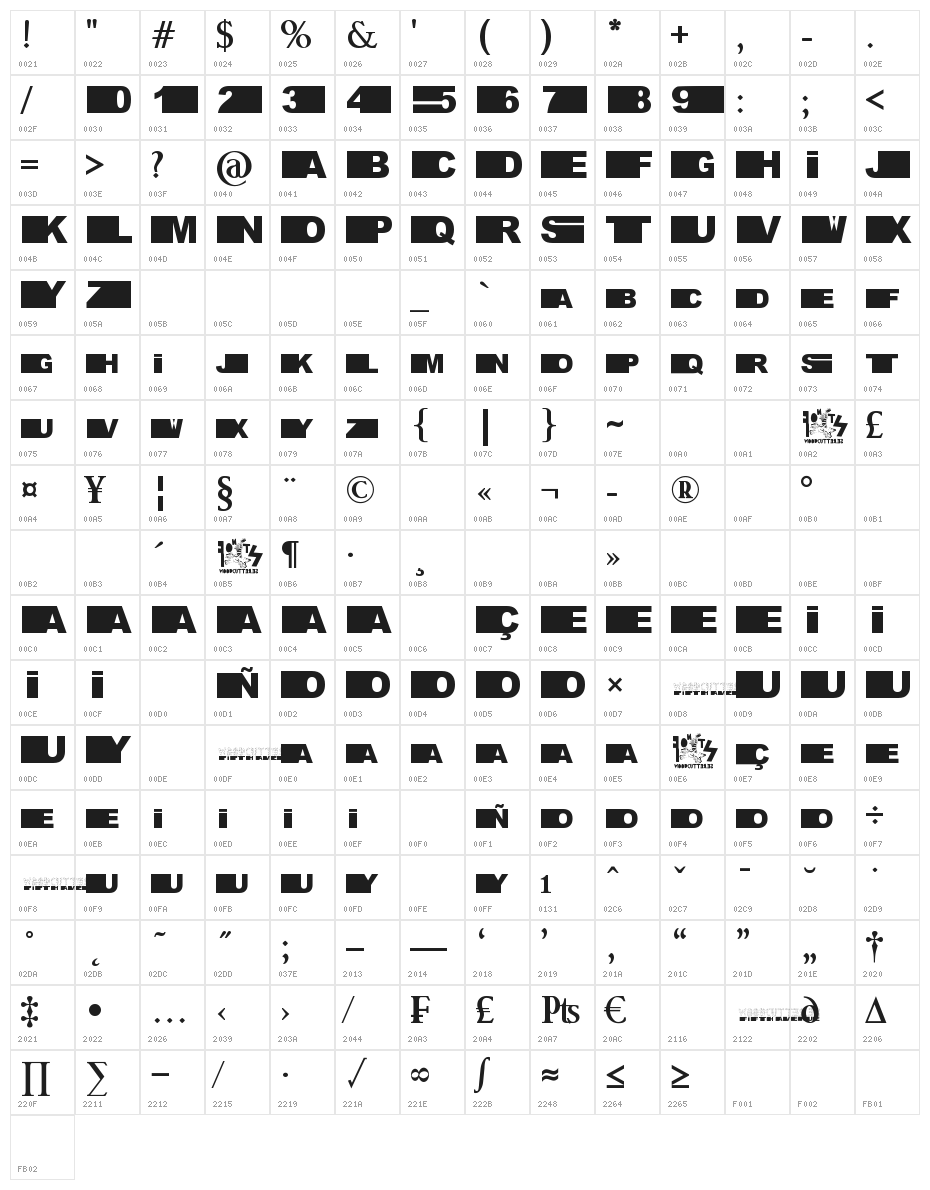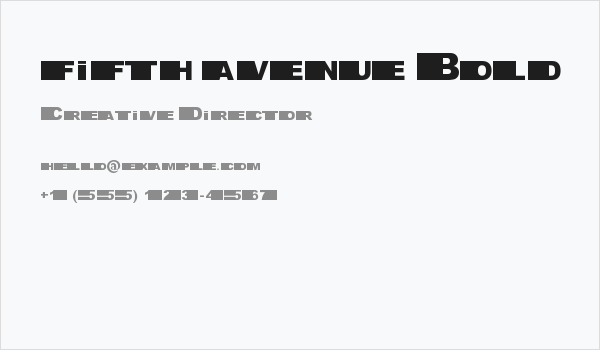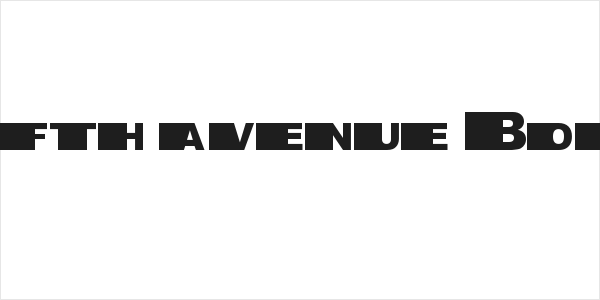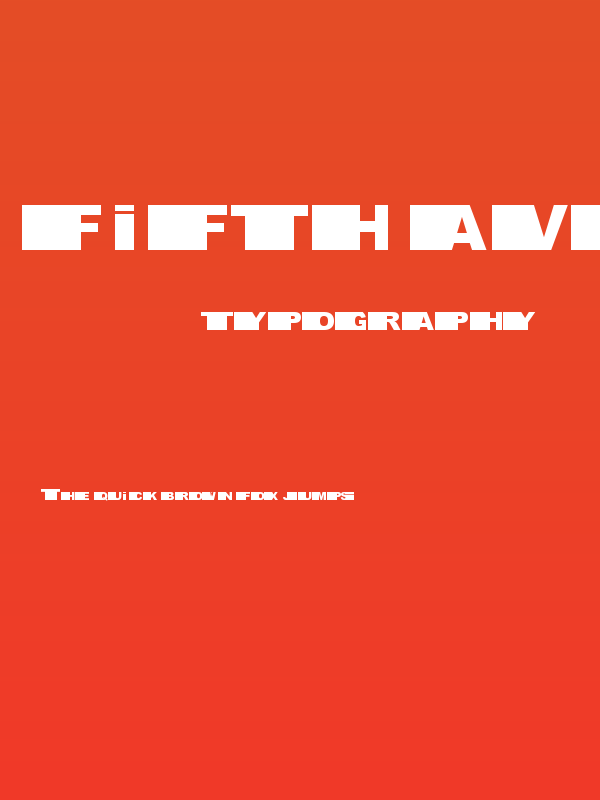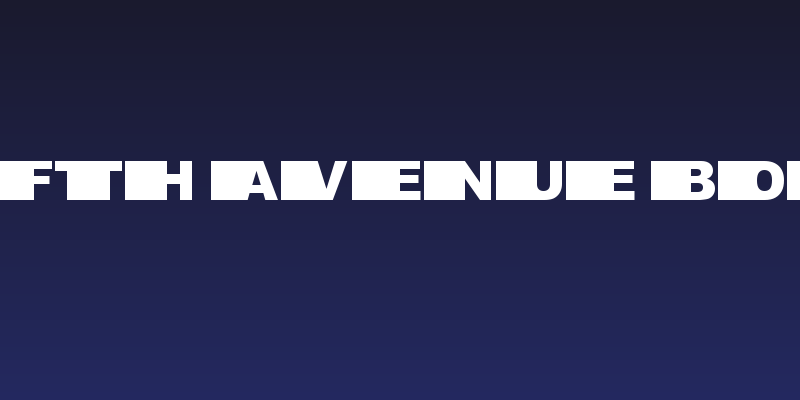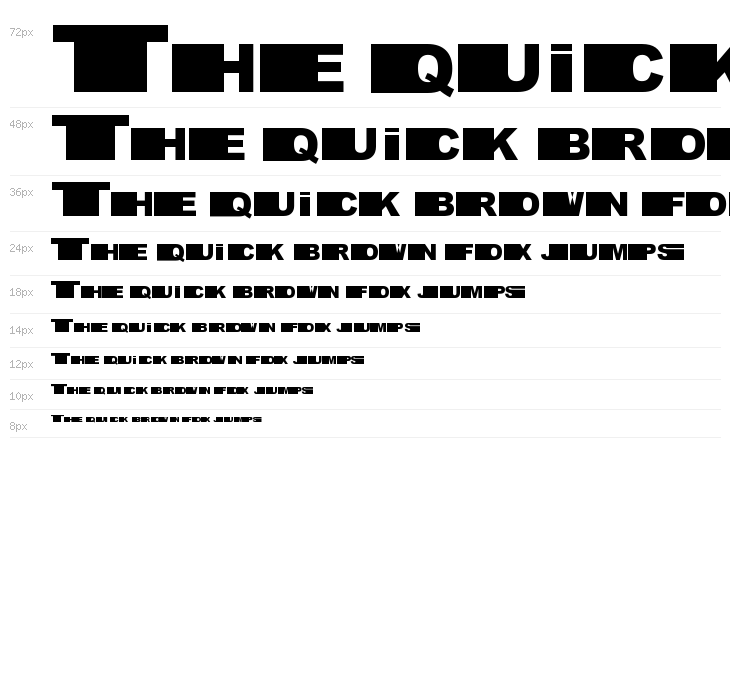
fifth avenue Bold Font
fifth avenue Bold Description
This font features a bold and striking design with a strong geometric influence. The characters are blocky and wide, with a high contrast between thick and thin strokes, giving it a dramatic and impactful appearance. The uppercase letters are particularly prominent, with a uniform height and width that creates a cohesive and balanced look. The lowercase letters maintain the same boldness, ensuring consistency across the typeface. Numbers and special characters are designed to match the bold style, making them easily legible and visually appealing. This font is ideal for making a statement in any design project.
| Proposed Projects | Ideal for headlines, posters, branding, and any design requiring a strong visual impact. |